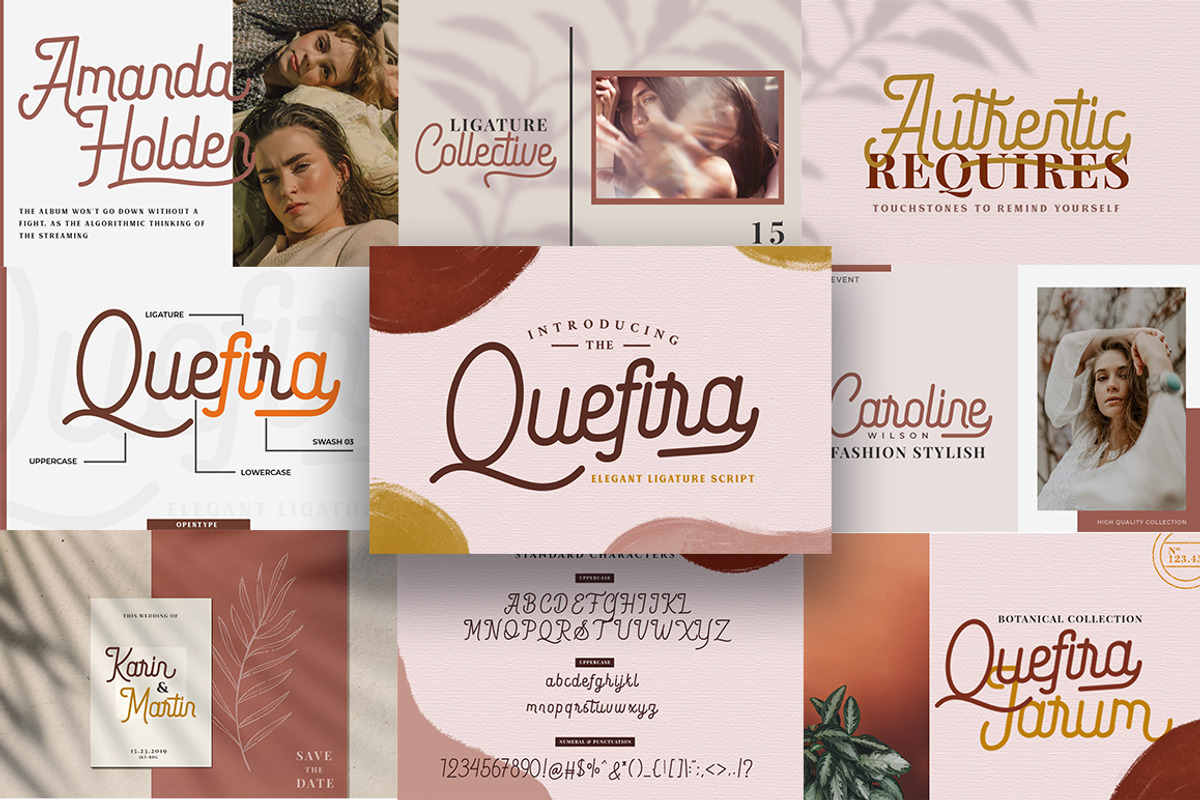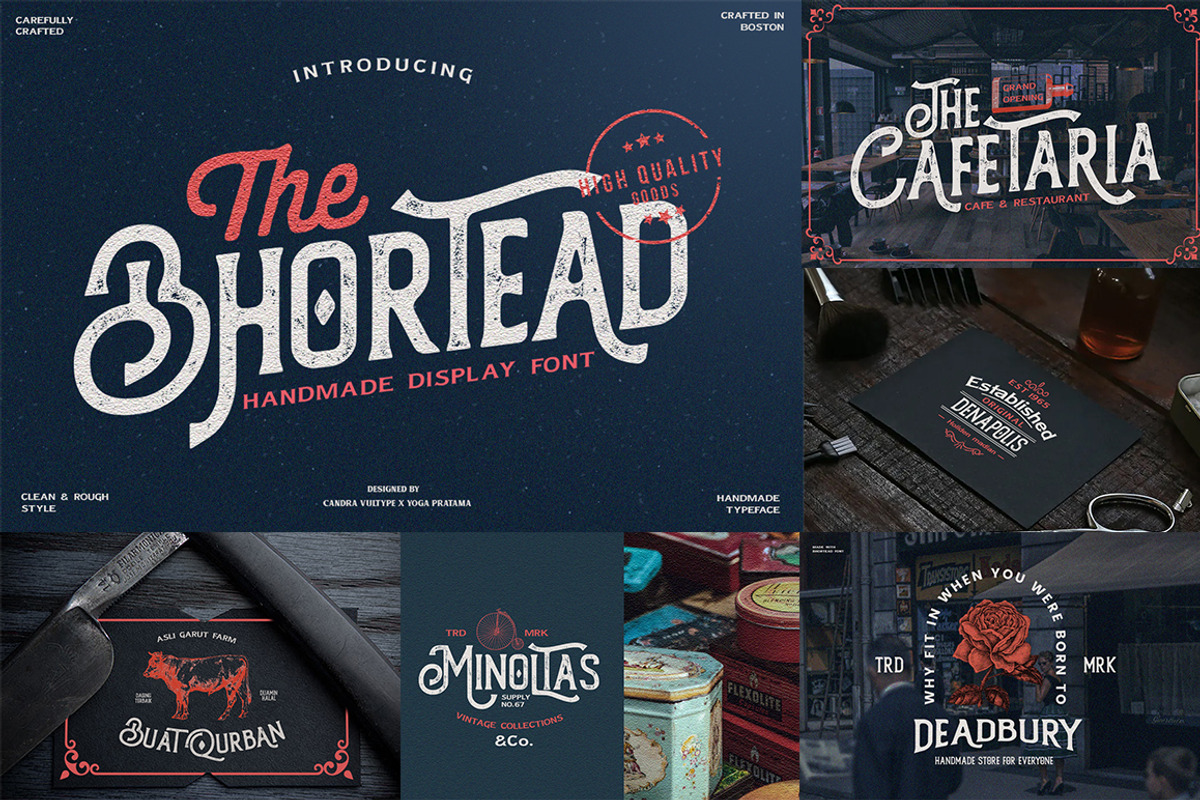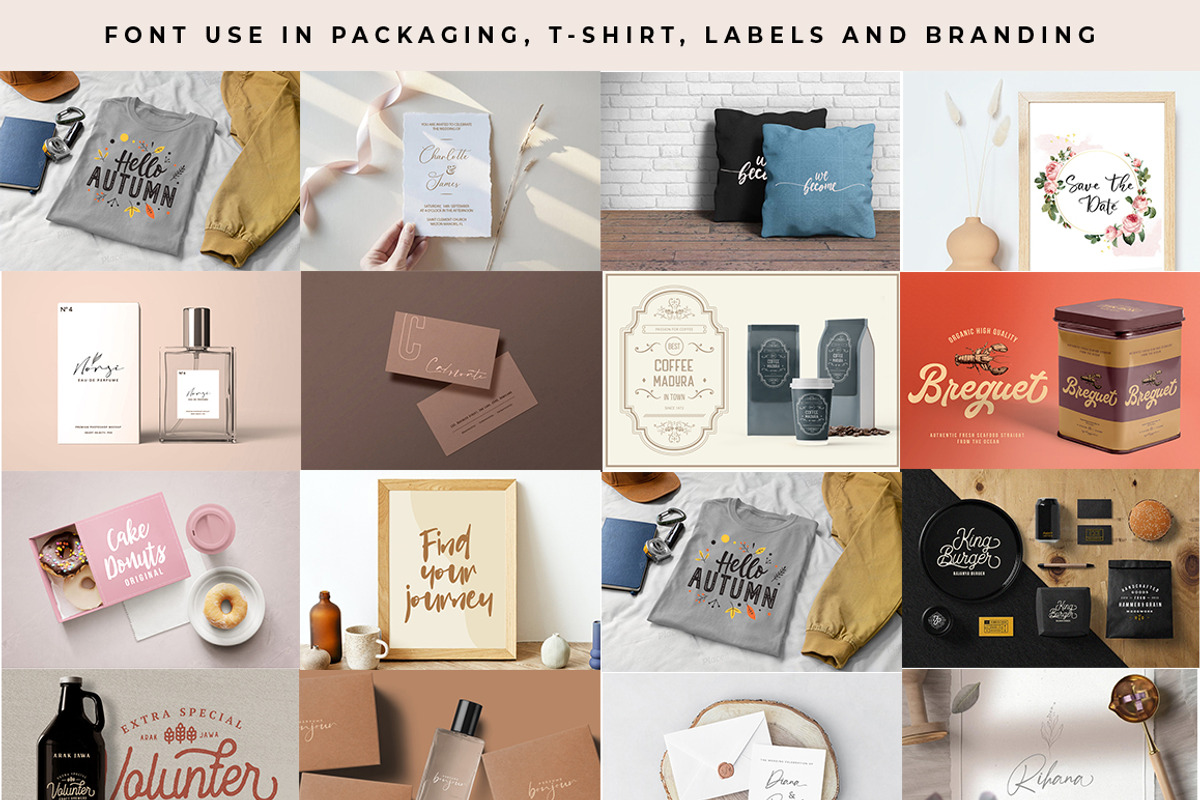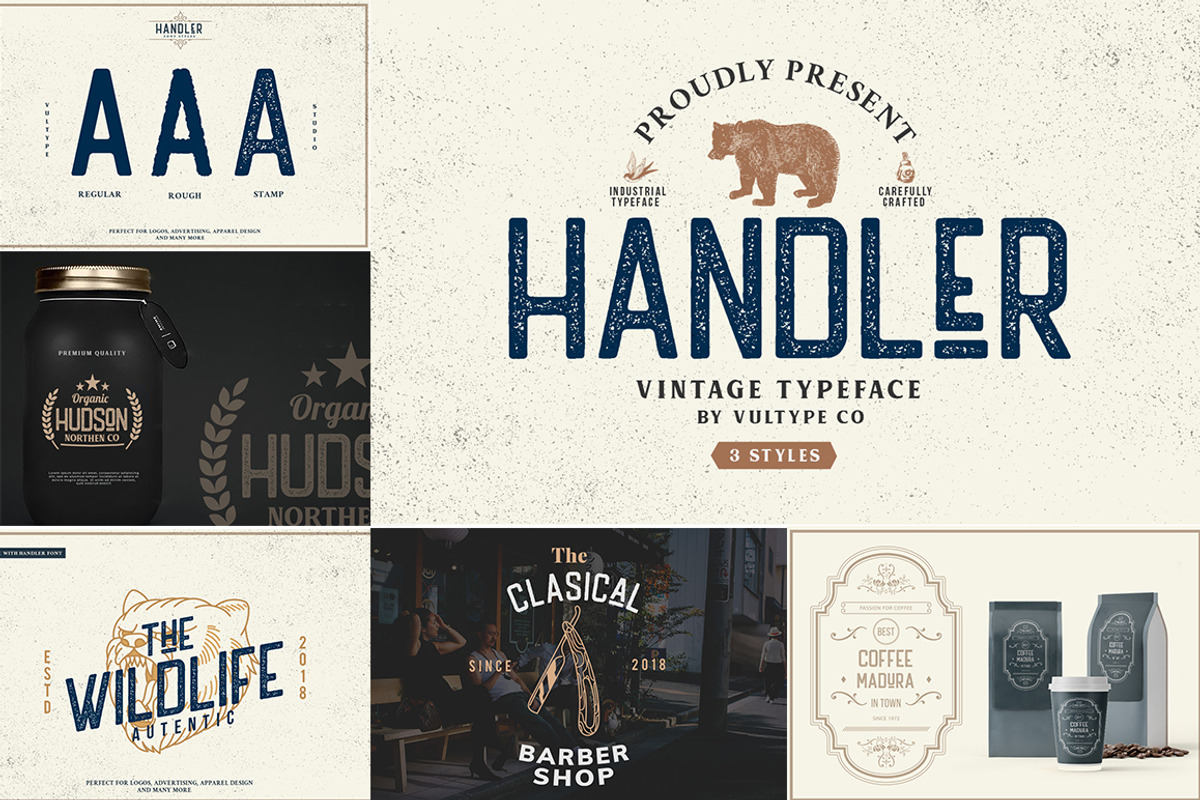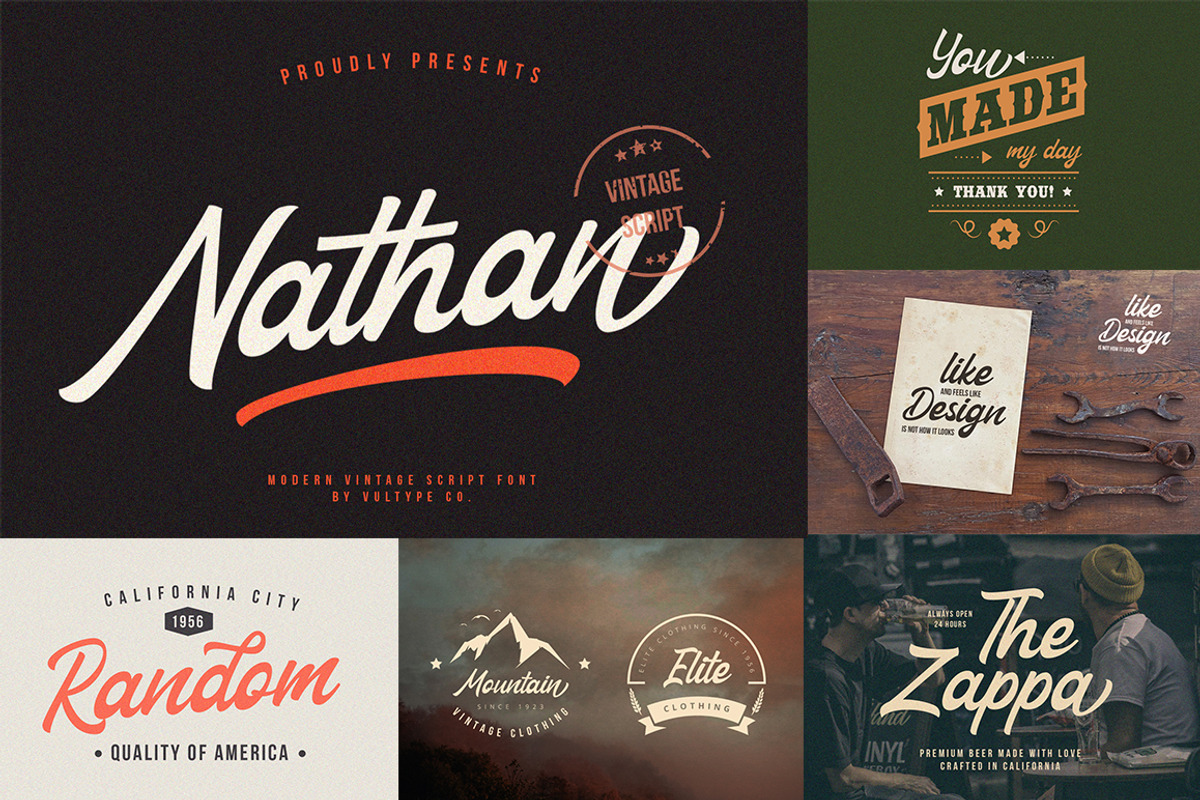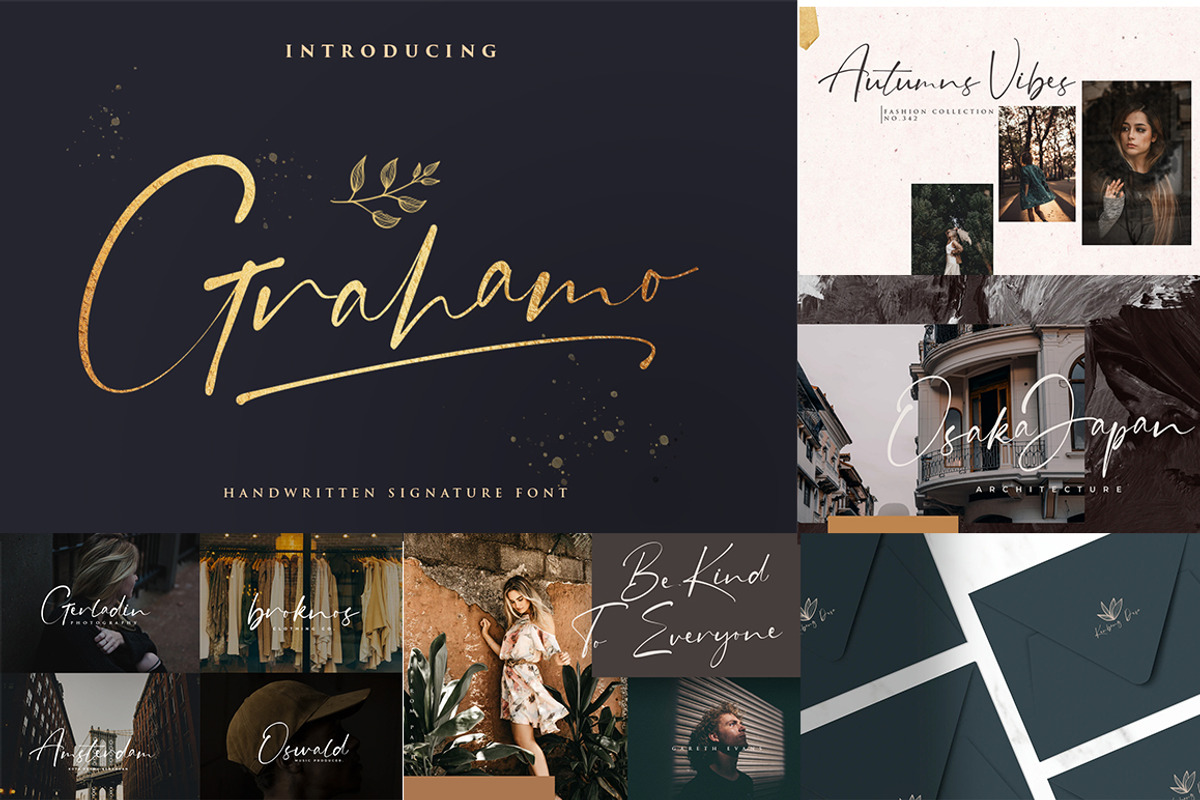
The Font Bundle For Graphic Designer
let's welcome vintage font bundle with 80+ Fonts in 23 Family Included Premade Logo Templates. there are sans serifs, scripts and handwritten and also displays that you can use on future projects
All characters have an imperfect shape that gives a natural look in design. It easily cooperating together and perfect for creating the traditional style Invites, planner stickers, fabric, cushions, blogs, branding, logos, weddings, scrapbooking, posters, packaging, nail art, etc